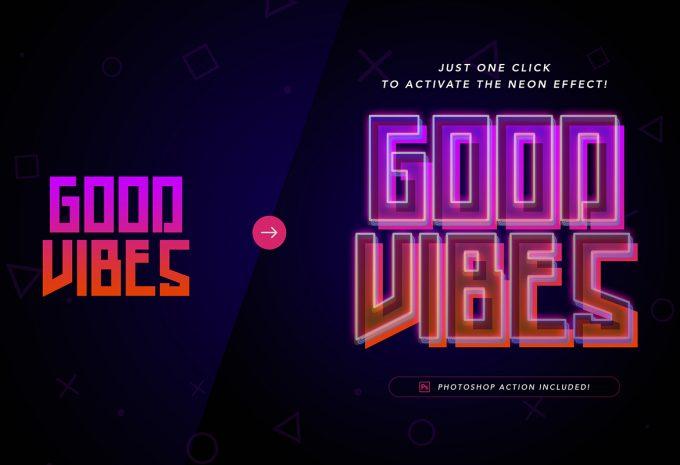
Make your promotional campaign to be the fabulous one by using Good Vibes, a modern neon font inspired by neon, modern technology and sport. It is very suitable for poster, music concert, live show, logo, quoted text, games, dark theme, even it will perfect match for sport theme overlay background image.
Good Vibes Modern Neon Font consisted of uppercase & lowercase letters, regular & bold weight, numbering and punctuation. Once you purchased this item, you’ll get a bonus feature: a neon effect Photoshop action with just one click to activate the effect. So, don’t miss the chance to have this font to make your creation perfect! It’s only available in OTF format file but easy to install and support for your Mac or Windows OS devices.